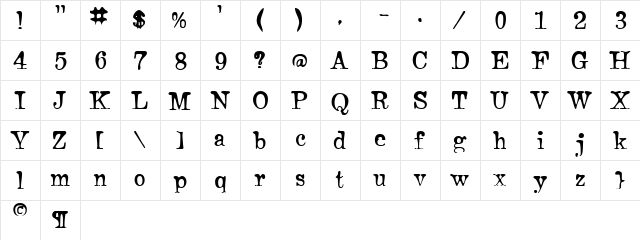
Bonsai Regular
Design Context for Bonsai Typeface
Bonsai is a composed and adaptable typeface that performs quietly and consistently across a wide range of design contexts.